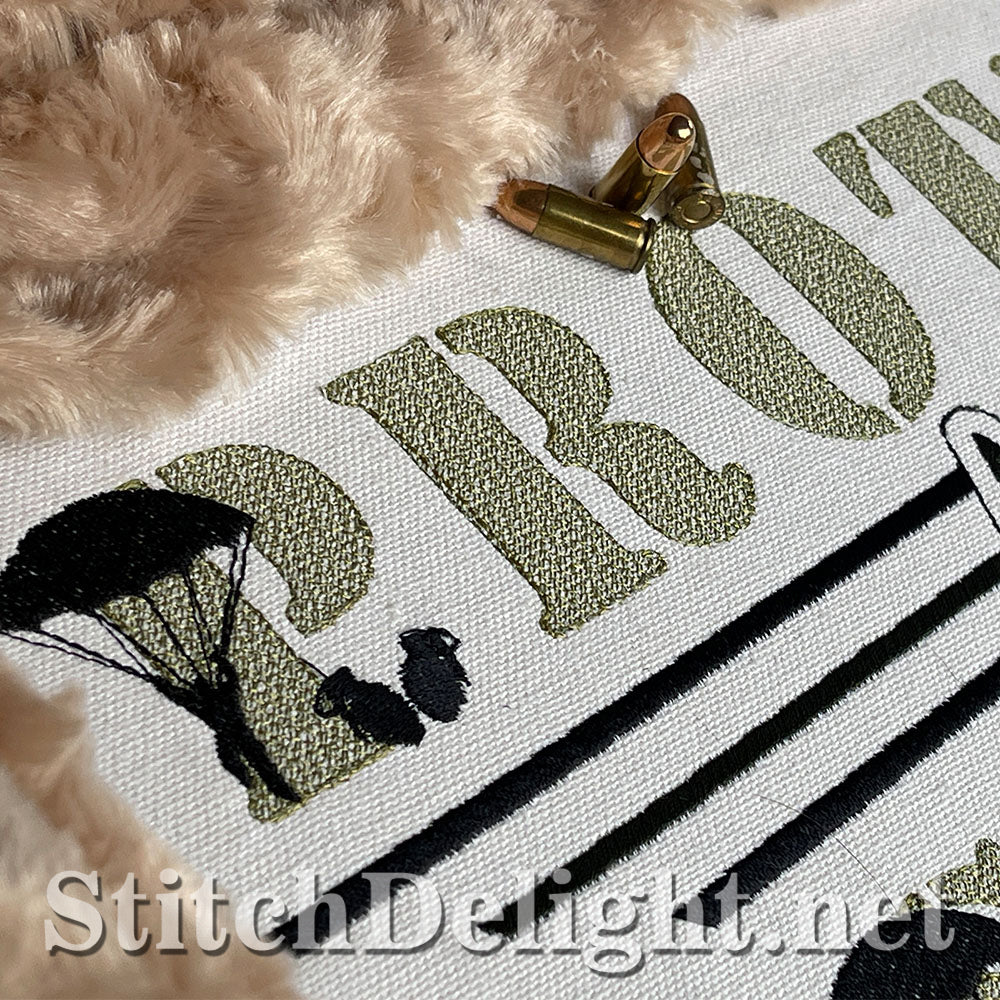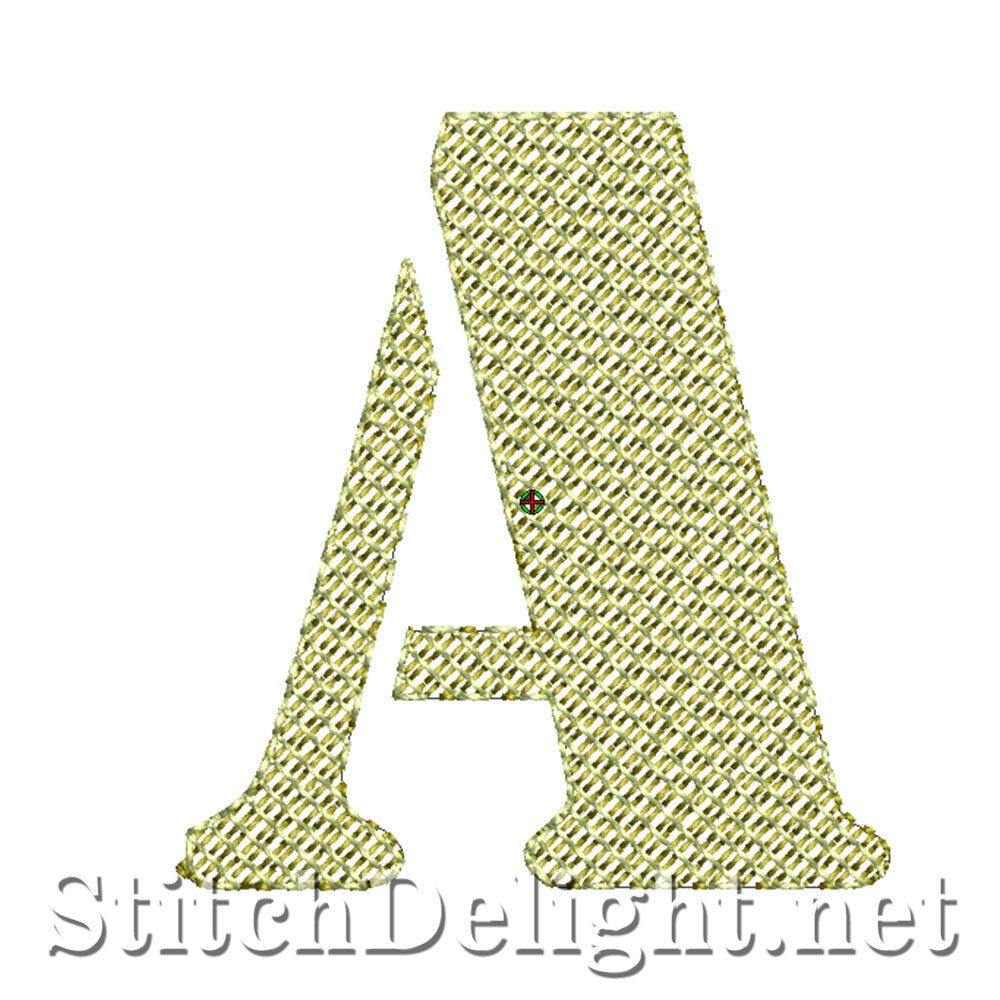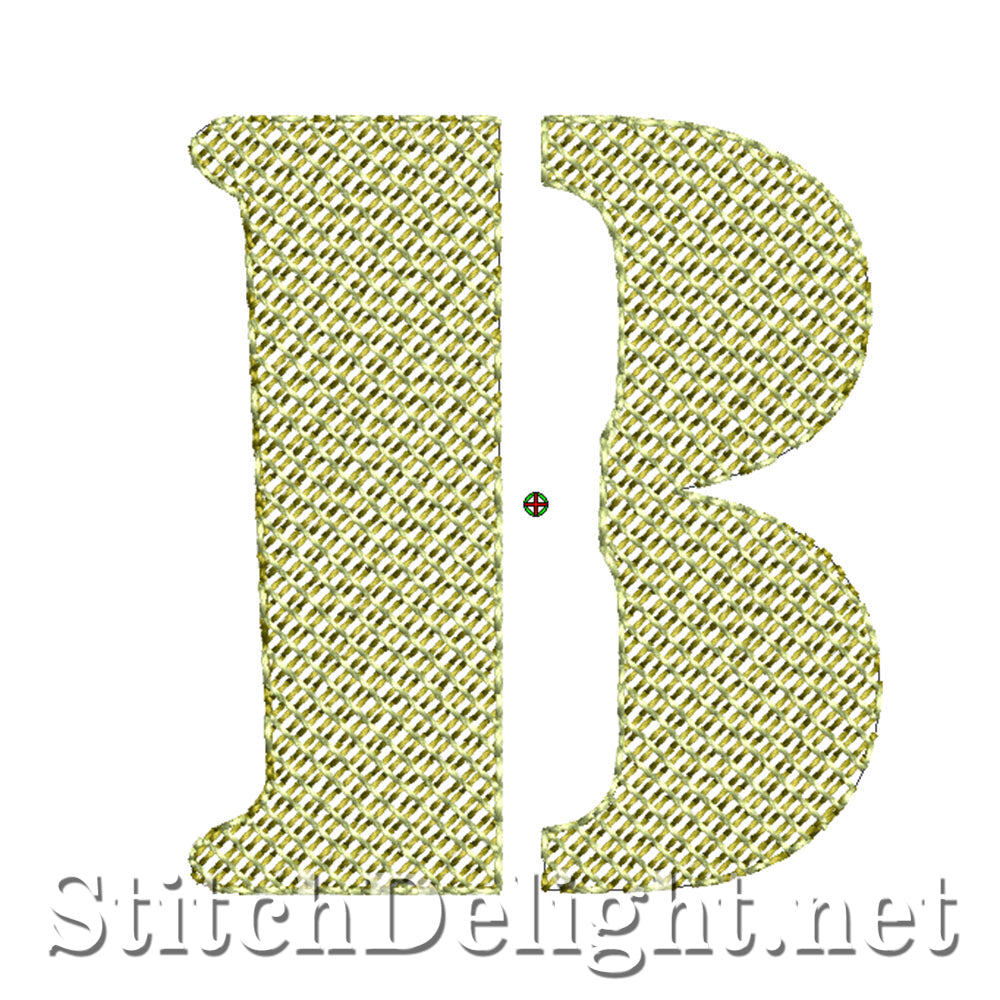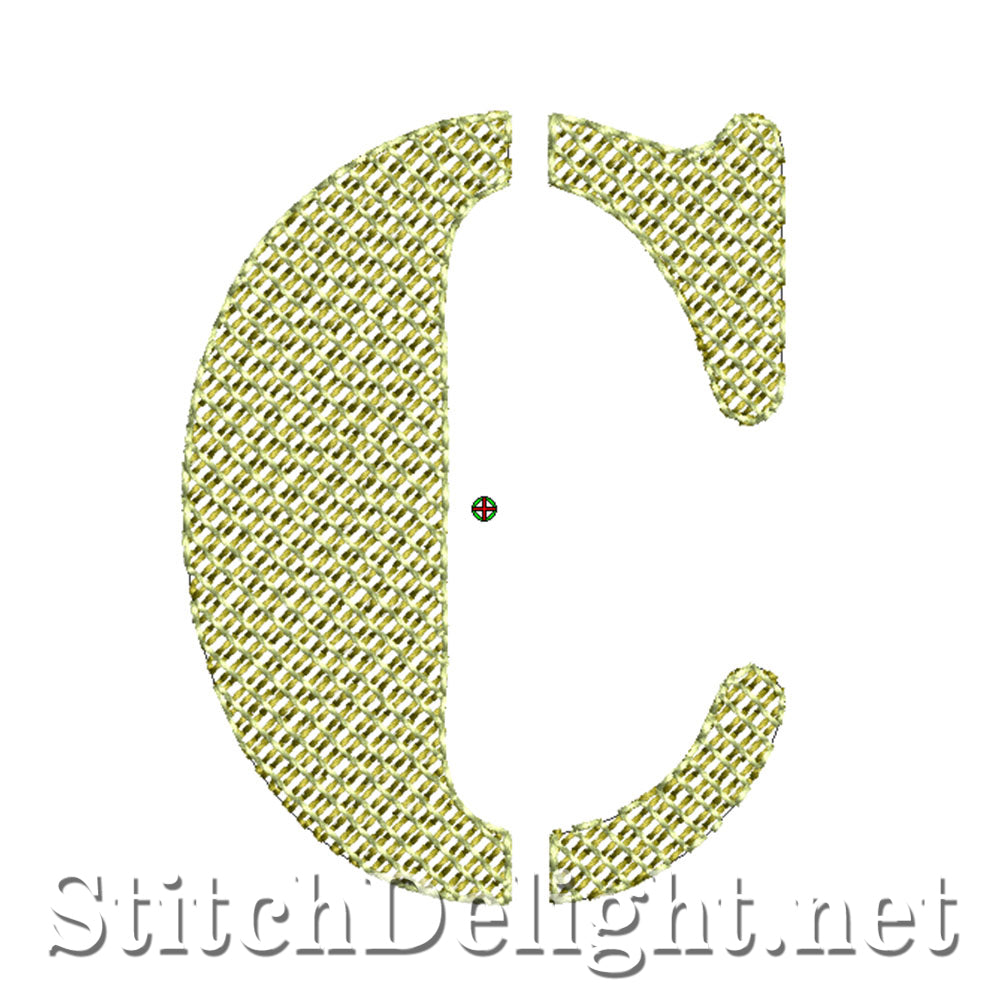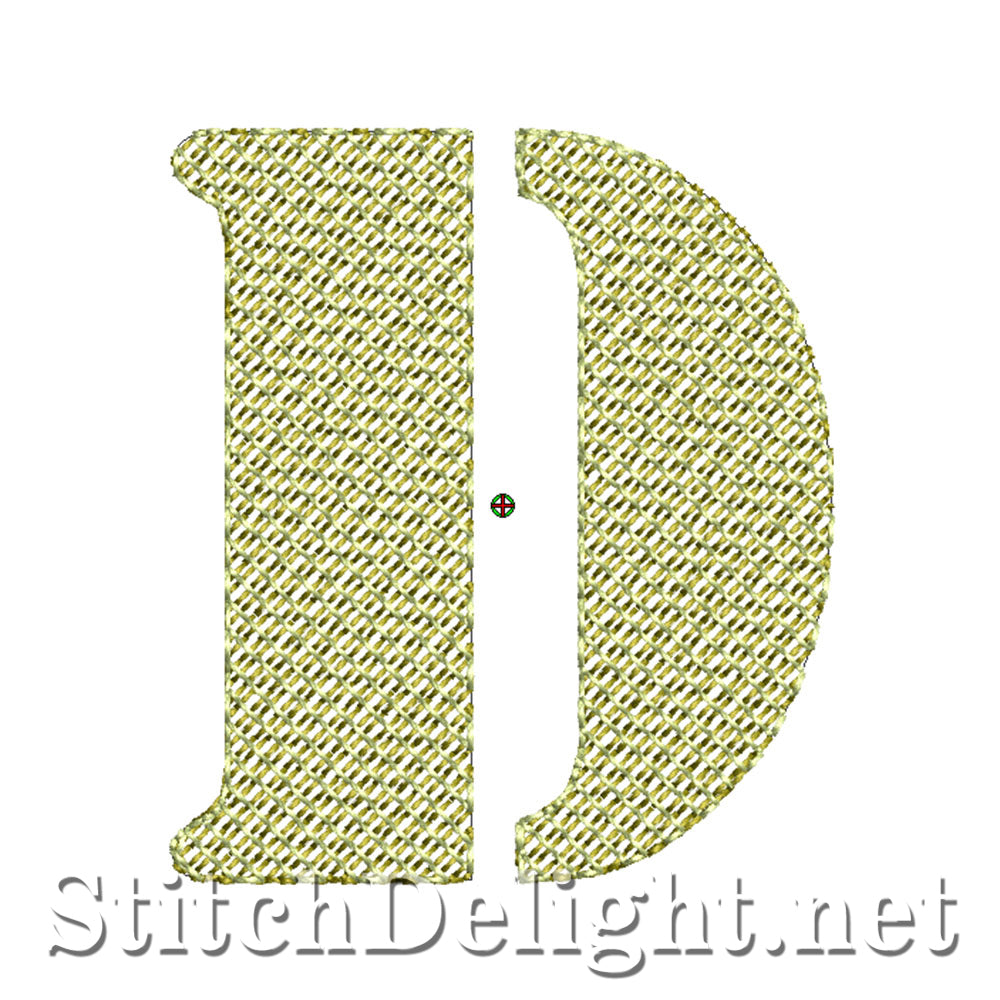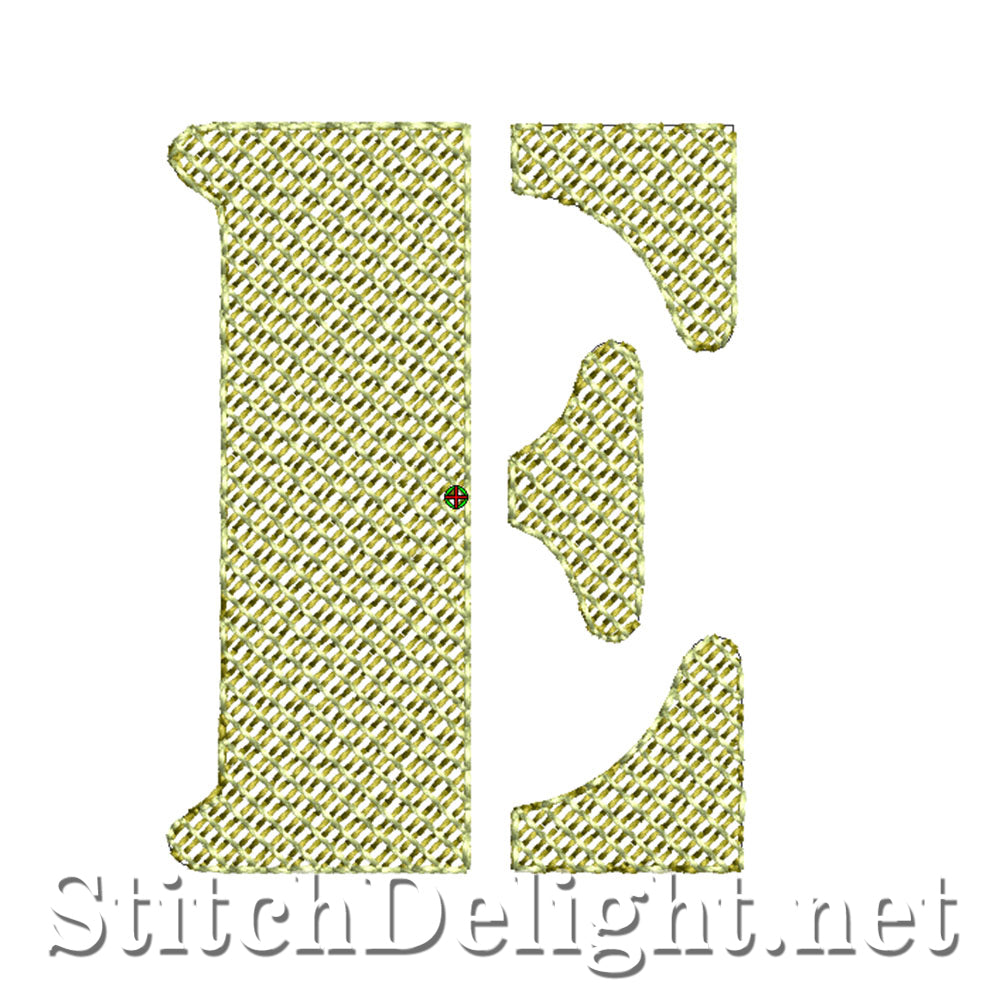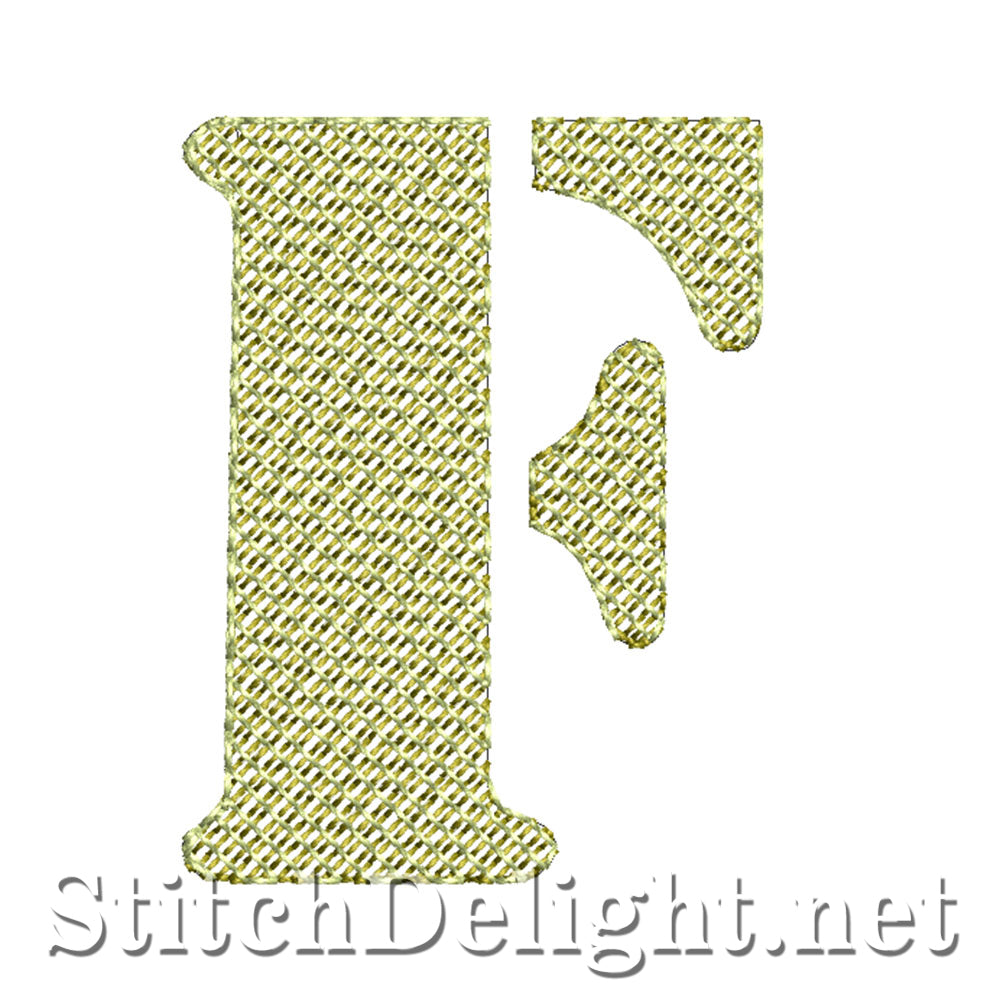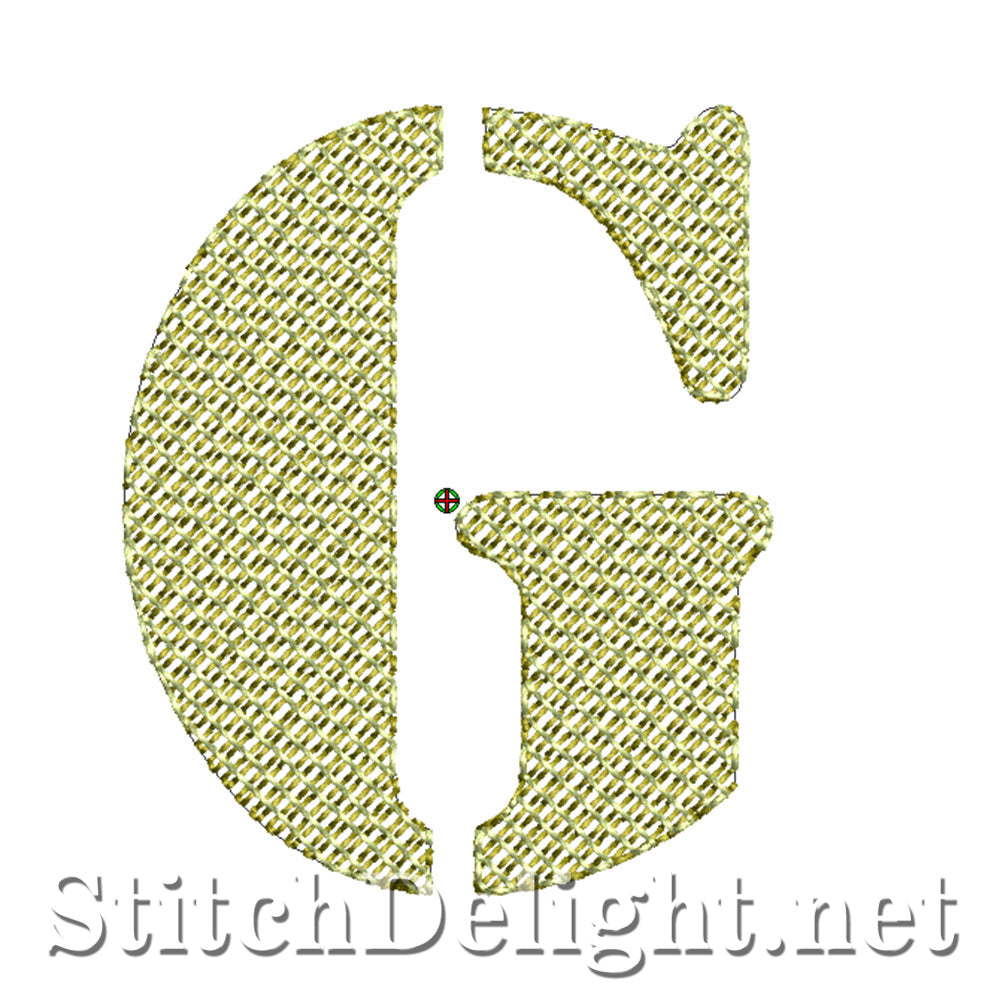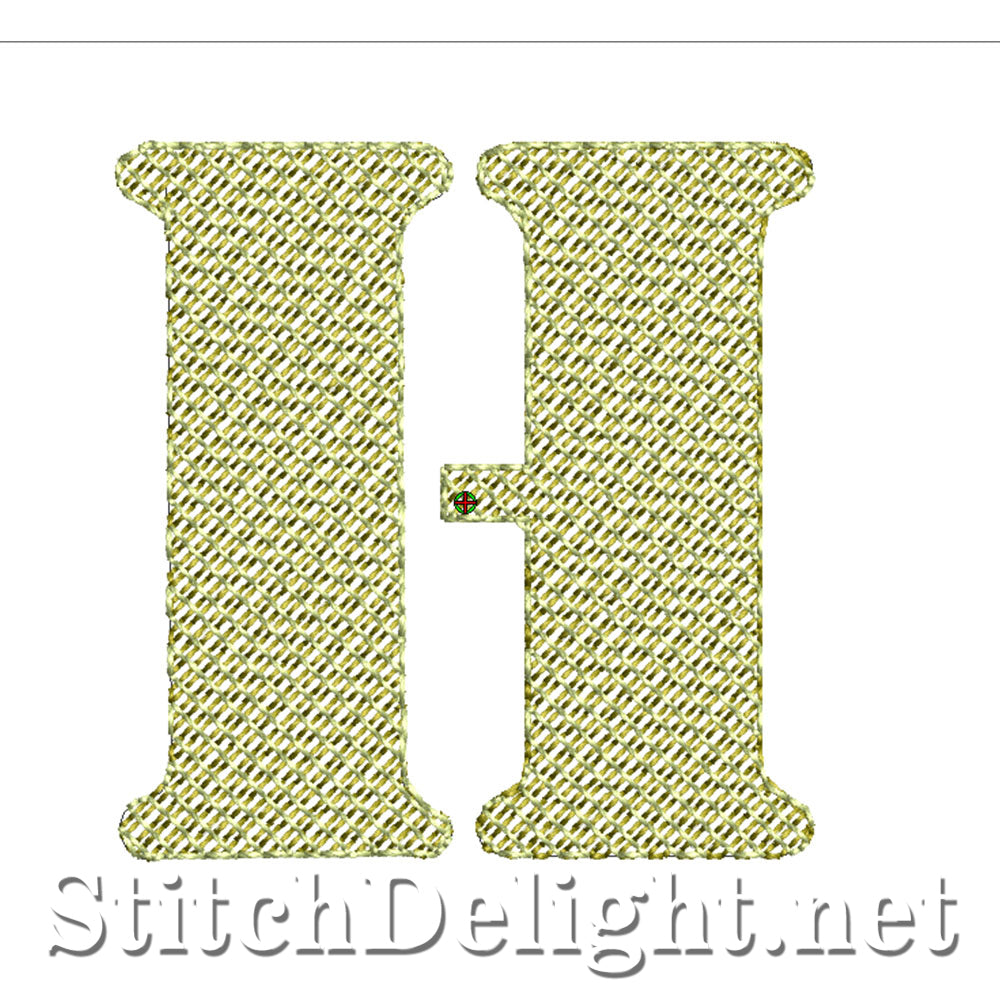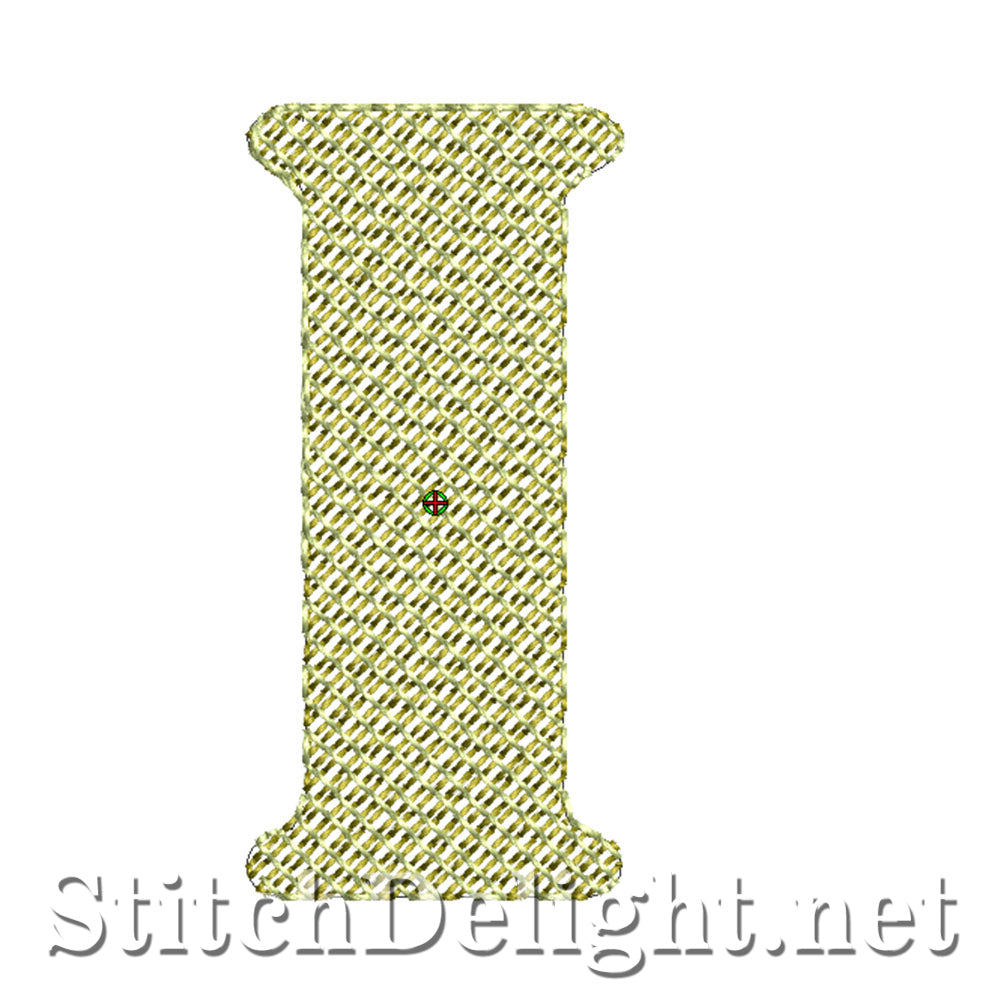
This font is perfect for adding a military-inspired touch to gifts or any project. Use this stencil font to infuse your creations with a hint of industrial flair and distinctive character.